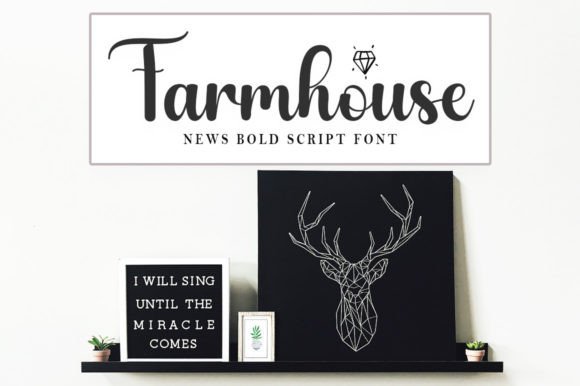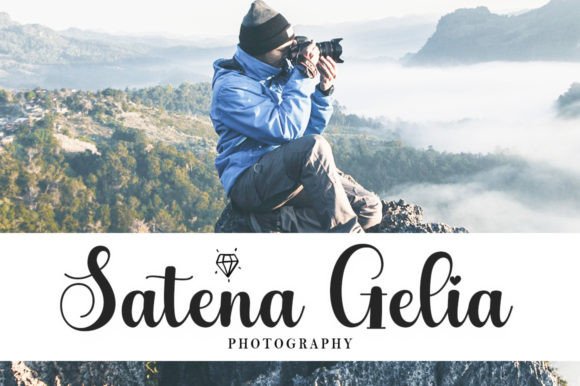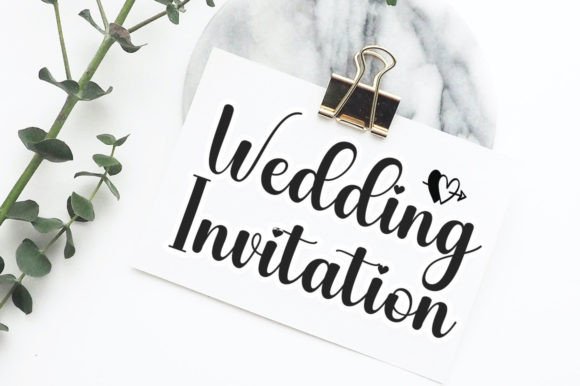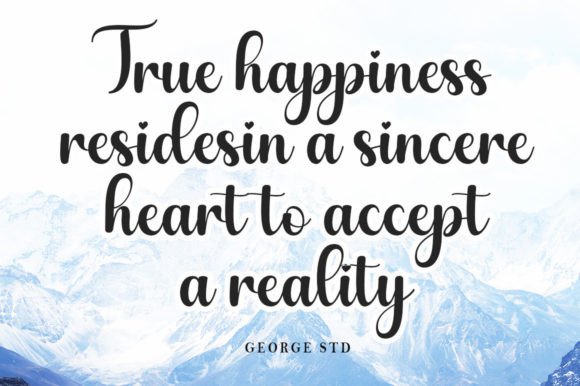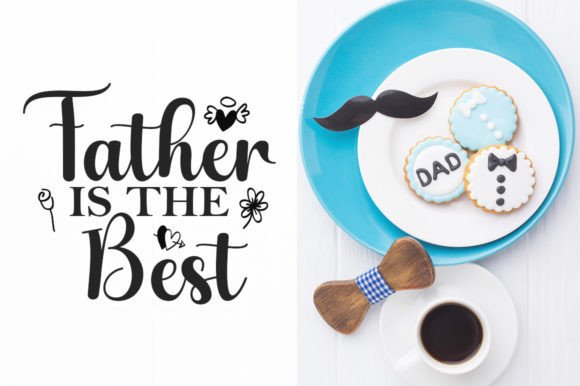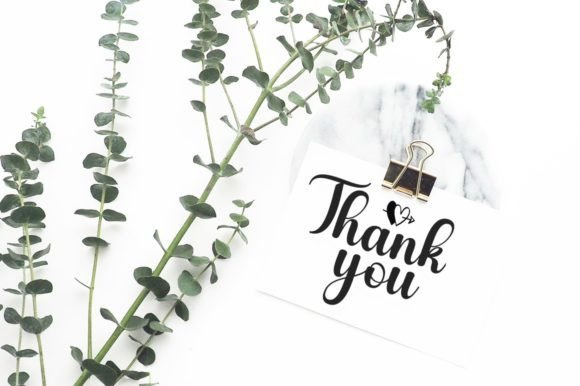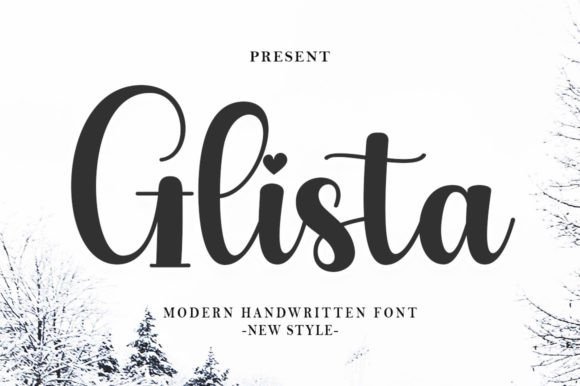
Glista Font: The Perfect Handwritten Font for Creative Projects
Are you a designer or crafter looking for a unique and elegant handwritten font to elevate your creative projects? Look no further than Glista Font! This beautiful font is perfect for a wide range of applications, from wall displays and wedding invitations to social media post logos, advertisements, product packaging, and more.
What is Glista Font?
Glista Font is a carefully crafted handwritten font that exudes a sense of elegance and sophistication. Its flowing lines and delicate curves make it perfect for adding a touch of personality to any project. Whether you’re looking to create a stunning wedding invitation, a eye-catching advertisement, or a beautiful piece of product packaging, Glista Font is the perfect choice.
Features of Glista Font
- Handwritten style: Glista Font has a unique handwritten style that adds a personal touch to any project.
- Elegant and sophisticated: The font’s flowing lines and delicate curves give it an elegant and sophisticated feel that’s perfect for high-end projects.
- Versatile: Glista Font can be used for a wide range of applications, from wall displays and wedding invitations to social media post logos and product packaging.
- Easy to read: Despite its elegant style, Glista Font is easy to read and understand, making it perfect for use in body text or headings.
Uses of Glista Font
Glista Font is perfect for a wide range of creative projects, including:
- Wall displays: Add a touch of elegance to your wall displays with Glista Font.
- Wedding invitations: Make your wedding invitations truly special with Glista Font.
- Social media post logos: Use Glista Font to create eye-catching social media post logos that stand out from the crowd.
- Advertisements: Add a touch of sophistication to your advertisements with Glista Font.
- Product packaging: Use Glista Font to create beautiful and elegant product packaging that reflects your brand’s personality.
- Product design: Add a touch of elegance to your product design with Glista Font.
- Labels: Use Glista Font to create beautiful and elegant labels that add a touch of personality to your products.
- Photography: Add a touch of sophistication to your photography with Glista Font.
- Watermarks: Use Glista Font to create elegant watermarks that protect your images.
- Invitations: Make your invitations truly special with Glista Font.
- Stationery: Add a touch of elegance to your stationery with Glista Font.
Why Choose Glista Font?
There are many reasons why you should choose Glista Font for your creative projects. Here are just a few:
- Unique style: Glista Font has a unique style that sets it apart from other fonts.
- Elegant and sophisticated: The font’s elegant and sophisticated feel makes it perfect for high-end projects.
- Versatile: Glista Font can be used for a wide range of applications.
In conclusion, Glista Font is the perfect handwritten font for creative projects. Its elegant and sophisticated feel, unique style, and versatility make it perfect for a wide range of applications. Whether you’re a designer or crafter, Glista Font is a great choice for adding a touch of personality to your projects. So why wait? Download Glista Font today and start creating beautiful and elegant projects that stand out from the crowd!